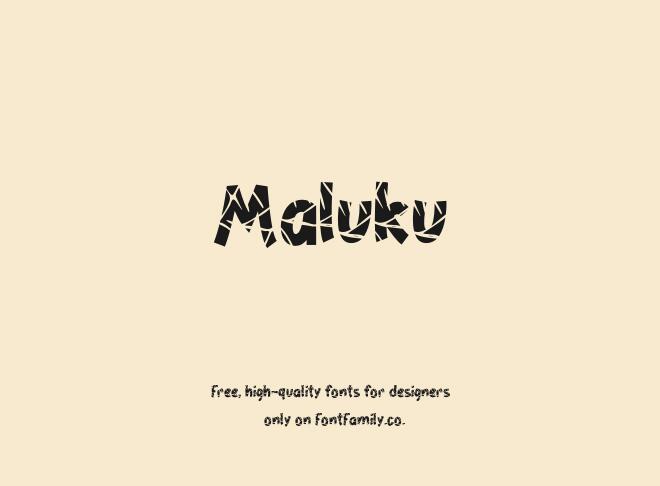
Maluku Font
The Maluku Font, designed by Design Bundles, is a delightful and playful script font that exudes charm and fun. Its handwritten style gives it a personal touch, making it perfect for invitations, greeting cards, and children's books. The font's decorative elements and playful design make it stand out, and it is often compared favorably to other popular fonts like Brush Script and Comic Sans for its readability and unique style. The Maluku Font is a great choice for designers looking to add a touch of whimsy and creativity to their projects. Its bold strokes and unique design elements make it a versatile font that can be used in a wide variety of design contexts, from logos and branding to social media posts and print designs.